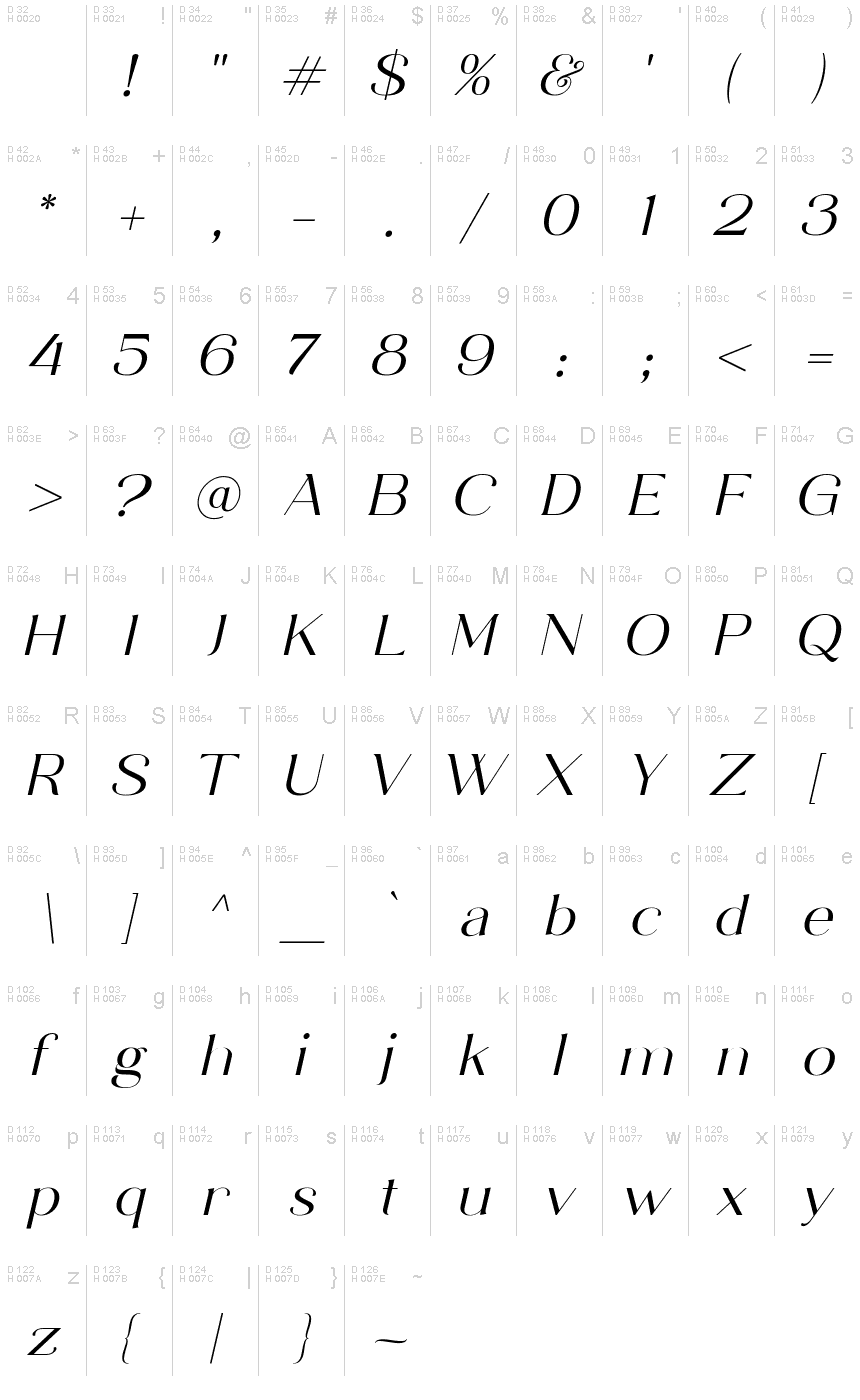
Avegas Royale Italic
Avegas Royale Italic, a distinguished member of the Avegas Royale font family, brings an air of sophistication to any design. Crafted by the talented Java Pep, this serif font boasts a semi-light weight that exudes elegance without overwhelming the senses.
The Avegas Royale Italic's slender and graceful lines are accentuated by its italicized stance, suggesting movement and flair. This delicate balance makes it a perfect choice for invitations, branding projects, and editorial work where a touch of class is paramount.
Visually appealing with its distinct serifs and subtle curves, Avegas Royale Italic captures attention while remaining highly readable. Its aesthetic charm lies in its ability to marry traditional serifs with contemporary finesse—ideal for designers seeking to imbue their work with timeless allure.
Whether you're crafting an upscale event's visual identity or setting the tone in a luxury magazine spread, Avegas Royale Italic stands ready to elevate your creative endeavors with its unique blend of style and grace.